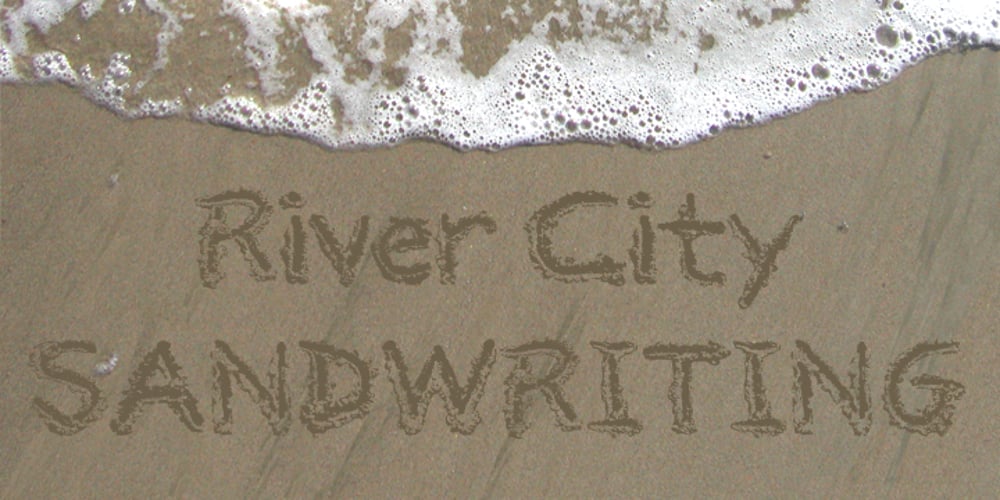
River City Sandwriting Font Family was designed by Dana DeCicco and published by River City. River City Sandwriting contains 1 styles and family package options. I searched all over the internet looking for a realistic sand writing font and came away empty handed. Undaunted by this, I grabbed my business partner, Mary and trekked down to our local river, the Arkansas (pronounced ar-KAN-sas around here). Using sticks, we scratched out the entire alphabet in the sand, including upper & lowercase, and punctuation marks! I photographed the characters, converted them to line art on my computer and used font creating software to turn it into a true type font! This font was designed for adding dates, places and messages to your beach photos that looked as if you wrote it in the sand before you took the picture! It is a decorative font best used in large, headline sizes. To make it appear more realistic, select a darker color from the sand in the photo to use for the type instead of black!